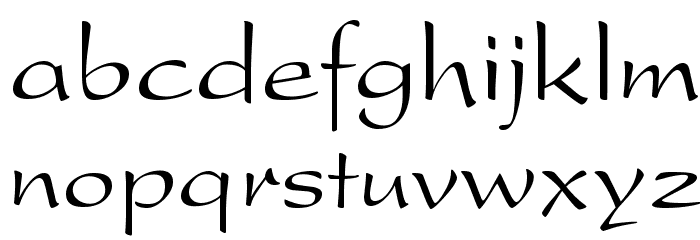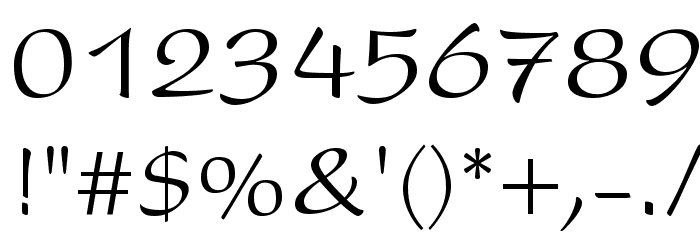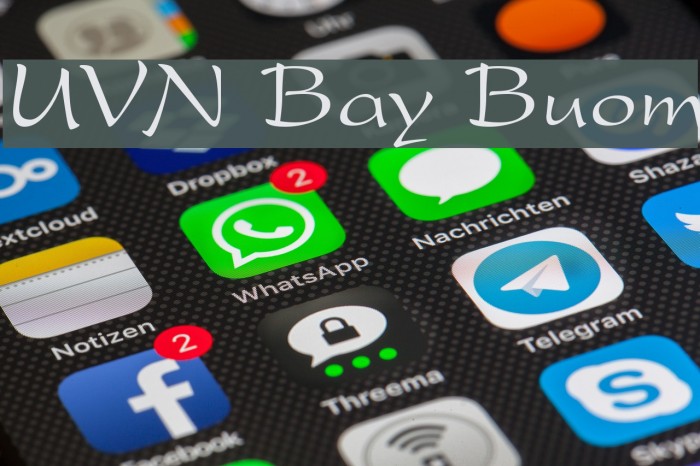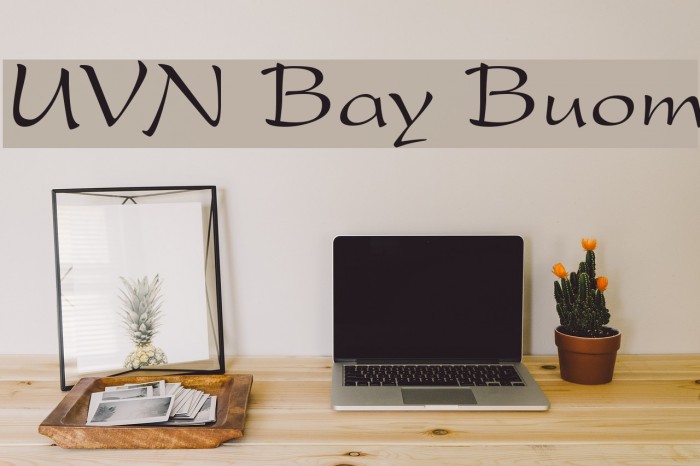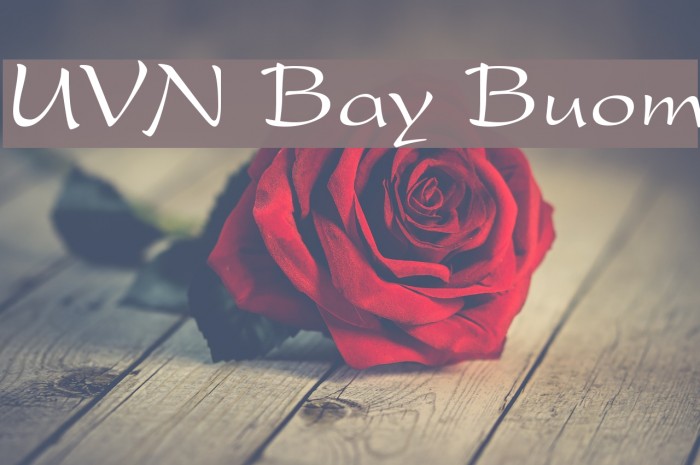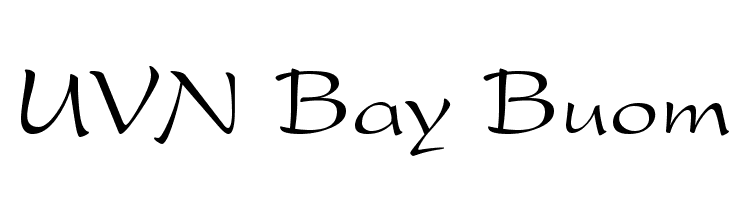
UVN Bay Buom Font
This font features a playful and dynamic script style, characterized by its flowing and slightly irregular strokes. The uppercase letters exhibit a sense of movement with their slanted and curved lines, while the lowercase letters maintain a consistent rhythm with a more rounded appearance. The numerals are distinct and easy to read, with a slight tilt that adds to the overall whimsical feel. Special characters are well-integrated, maintaining the font's unique style. The design is both artistic and legible, making it suitable for creative projects that require a touch of elegance and flair.
A playful and dynamic script font with flowing, slightly irregular strokes.
- Proposed Projects: Ideal for invitations, greeting cards, branding, and artistic projects that require a touch of elegance and creativity.
- Category: Script
- Use Case: Logos, Headlines, Artistic projects